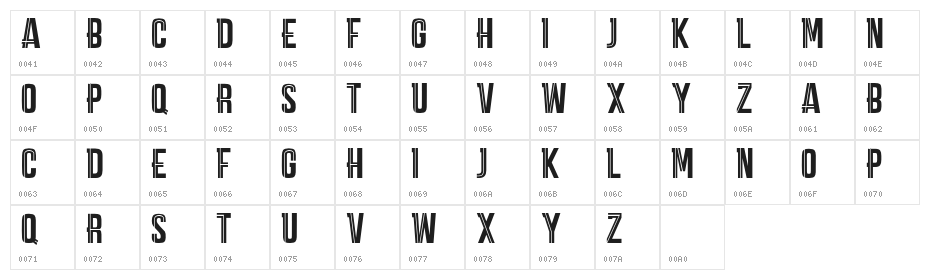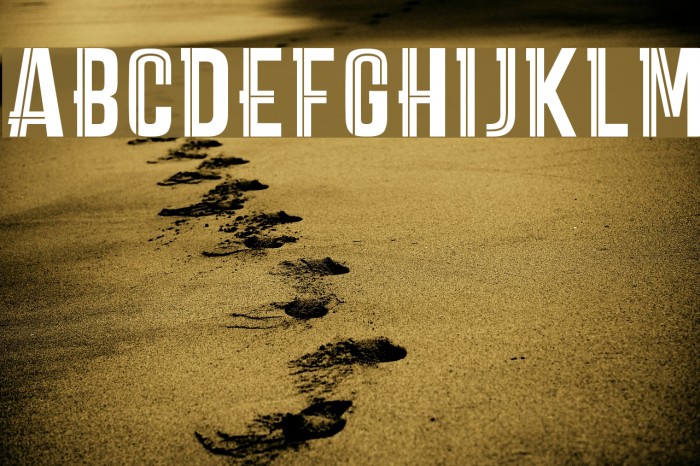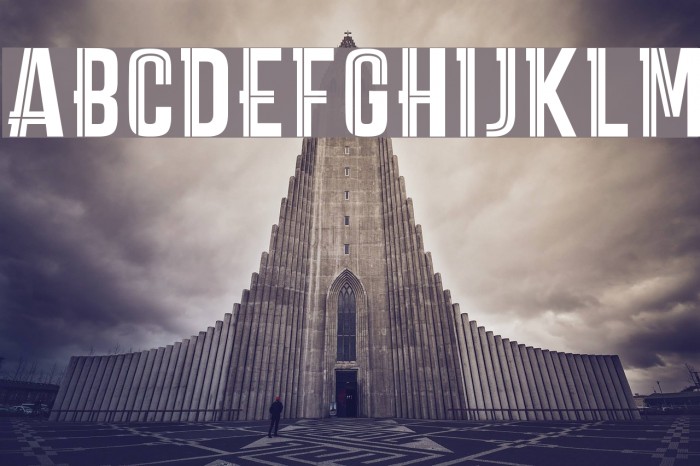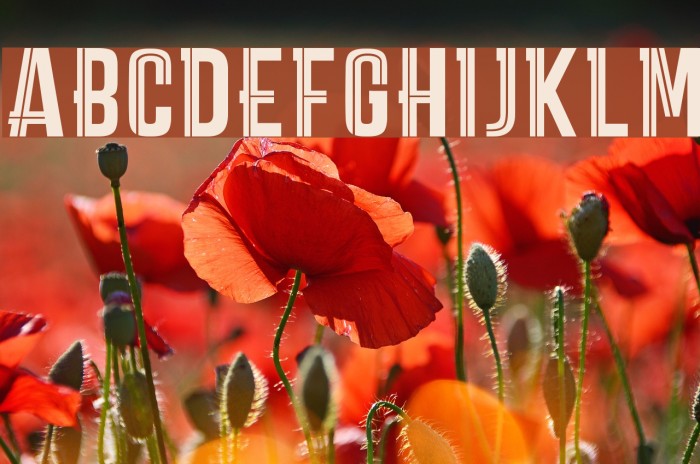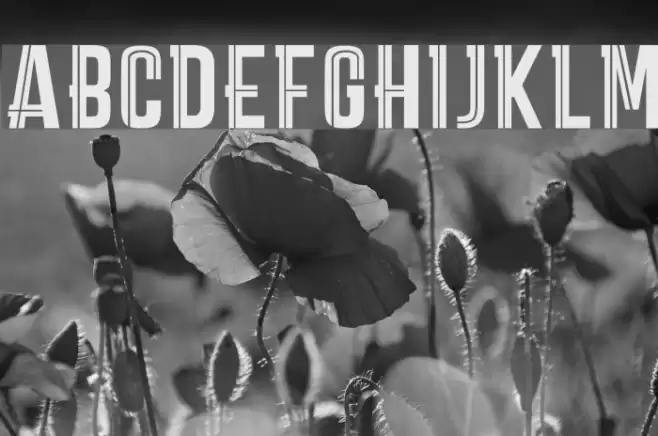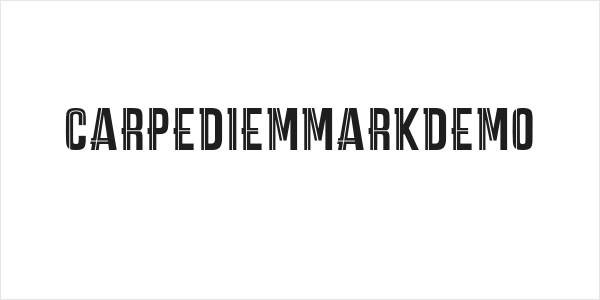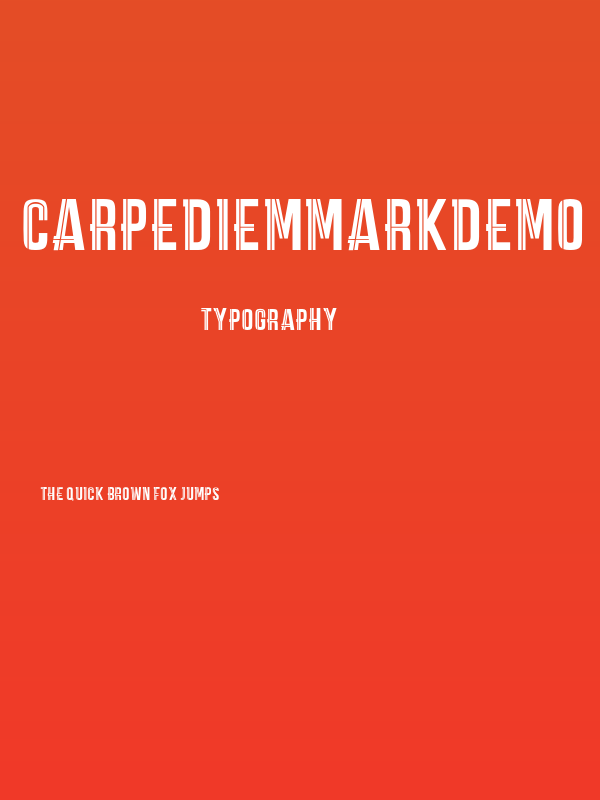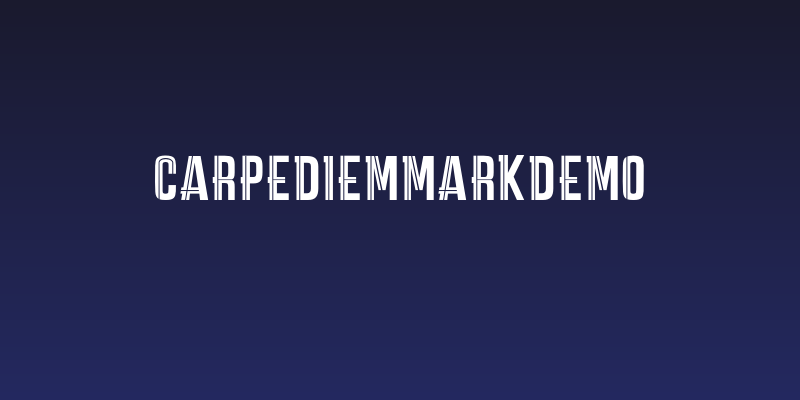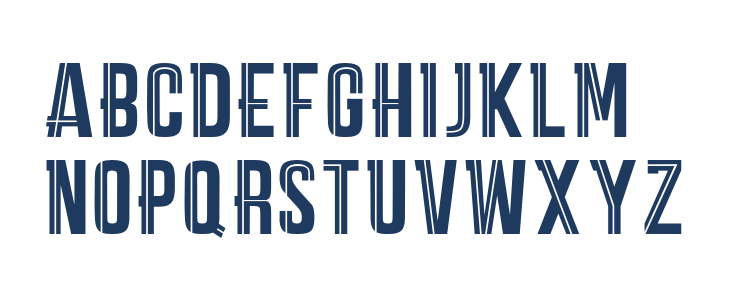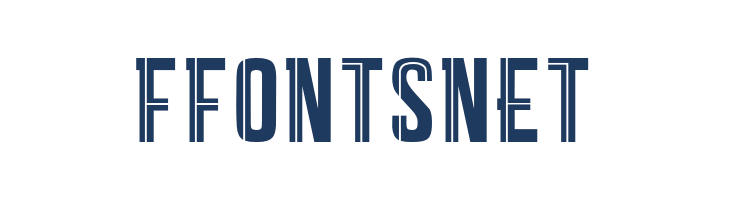
CARPEDIEMMARKDEMO Font
CARPEDIEMMARKDEMO Description
This font features a bold and striking design with a strong geometric influence. The characters are tall and narrow, with a condensed width that gives them a commanding presence. Each letter is crafted with a high contrast between thick and thin strokes, adding a dynamic and modern flair. The uppercase letters are particularly impactful, making them ideal for attention-grabbing headlines or titles. The font's style is reminiscent of vintage poster typography, yet it maintains a contemporary edge that suits a variety of design contexts.
Proposed ProjectsIdeal for posters, logos, branding, and editorial design where a strong visual impact is desired.